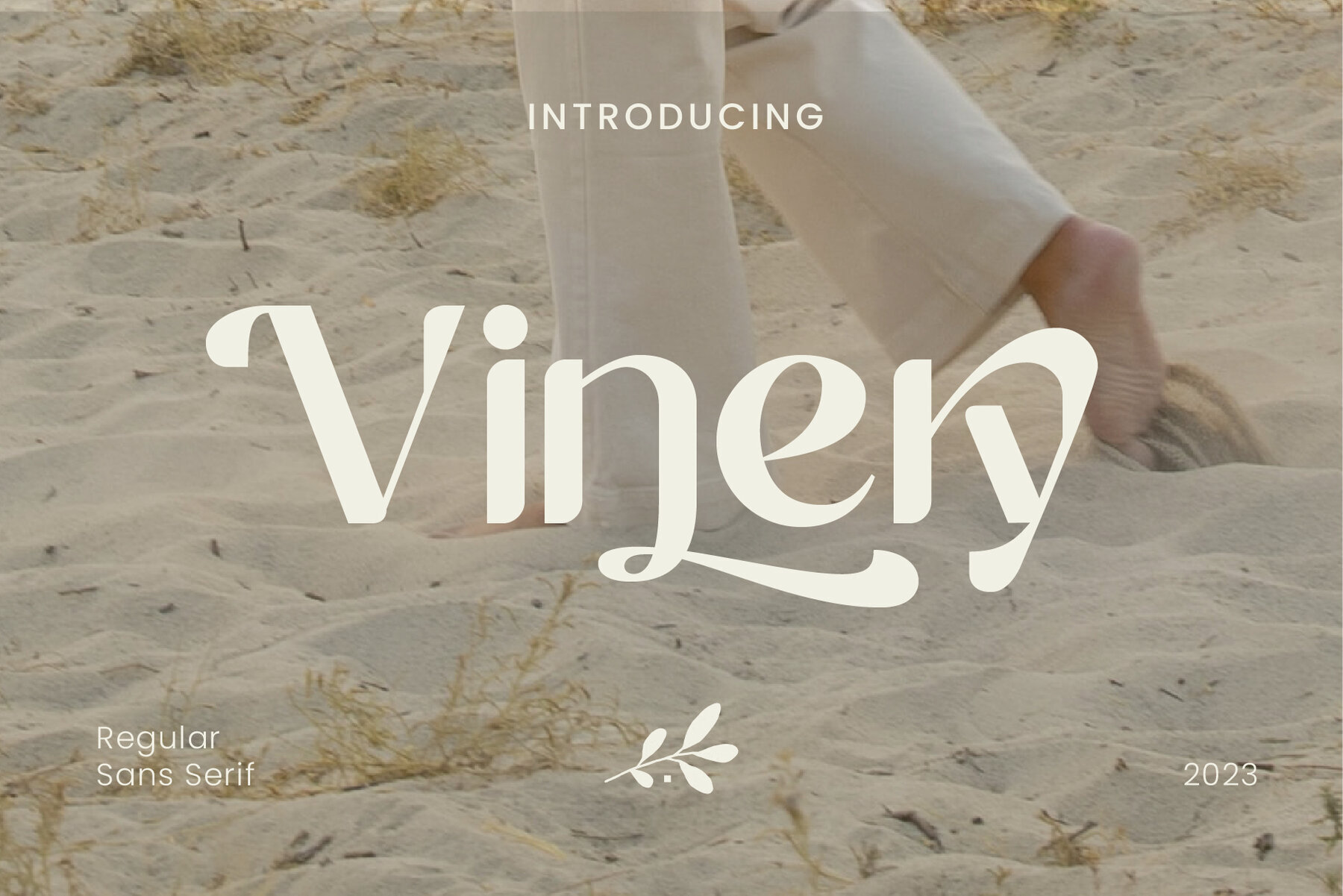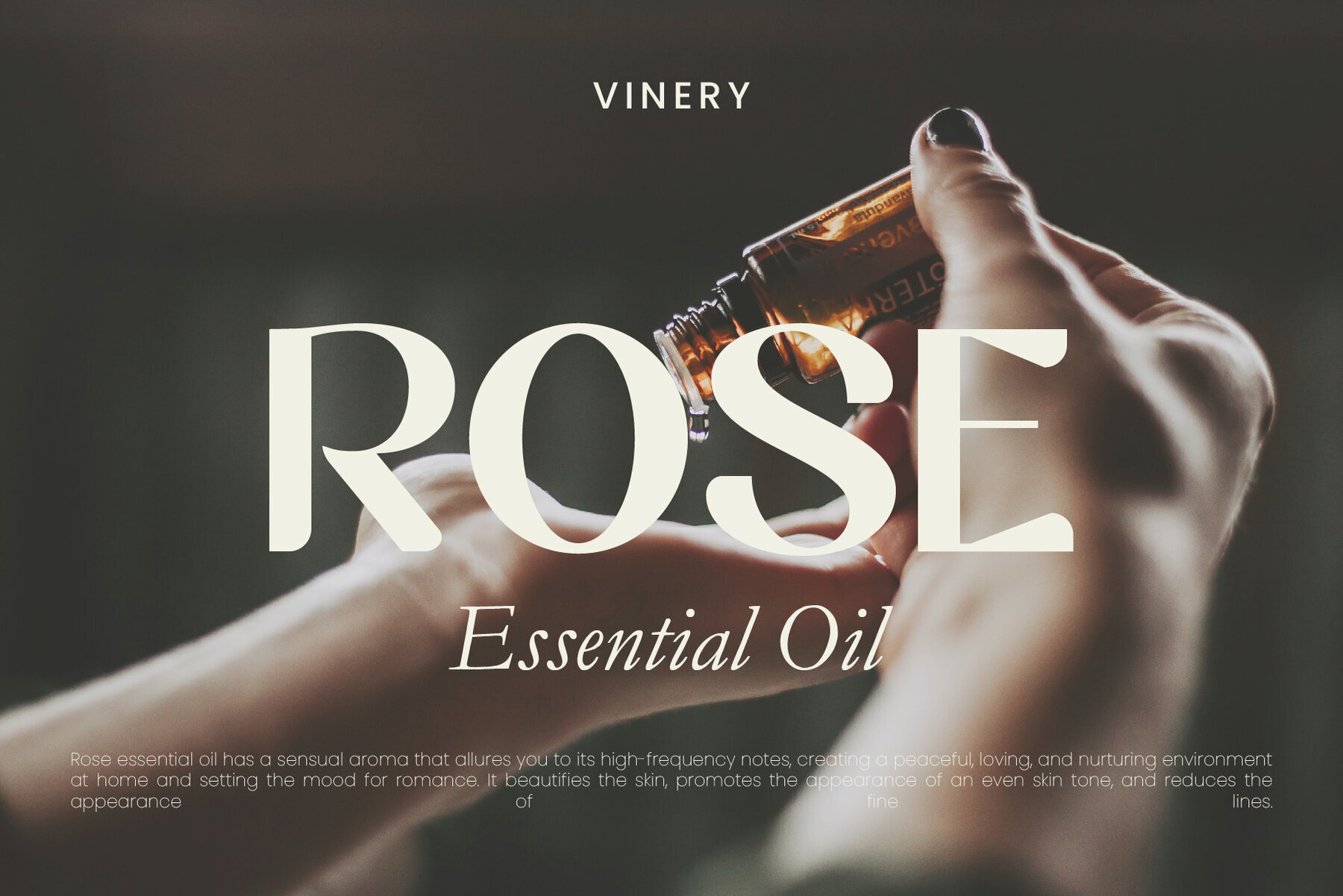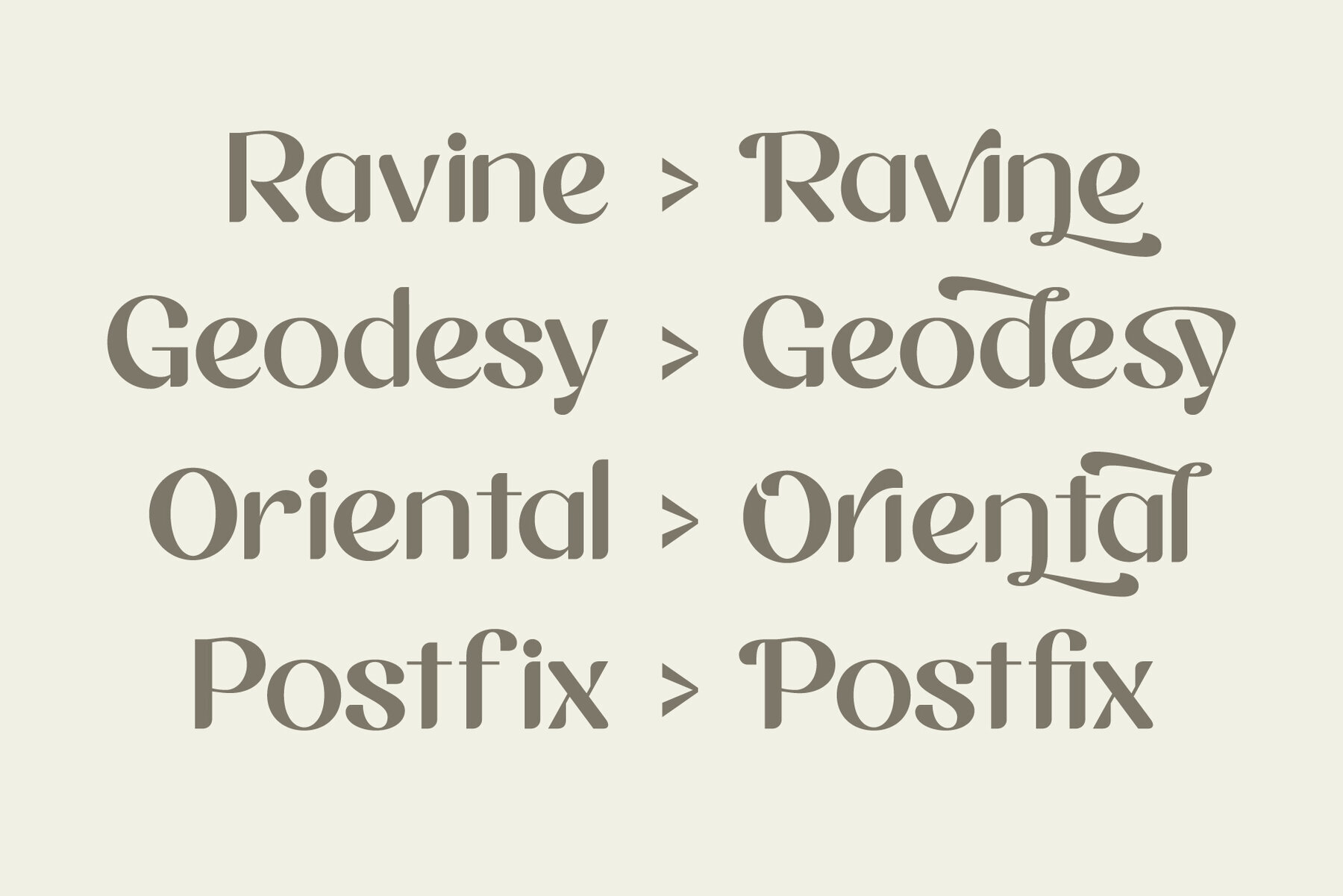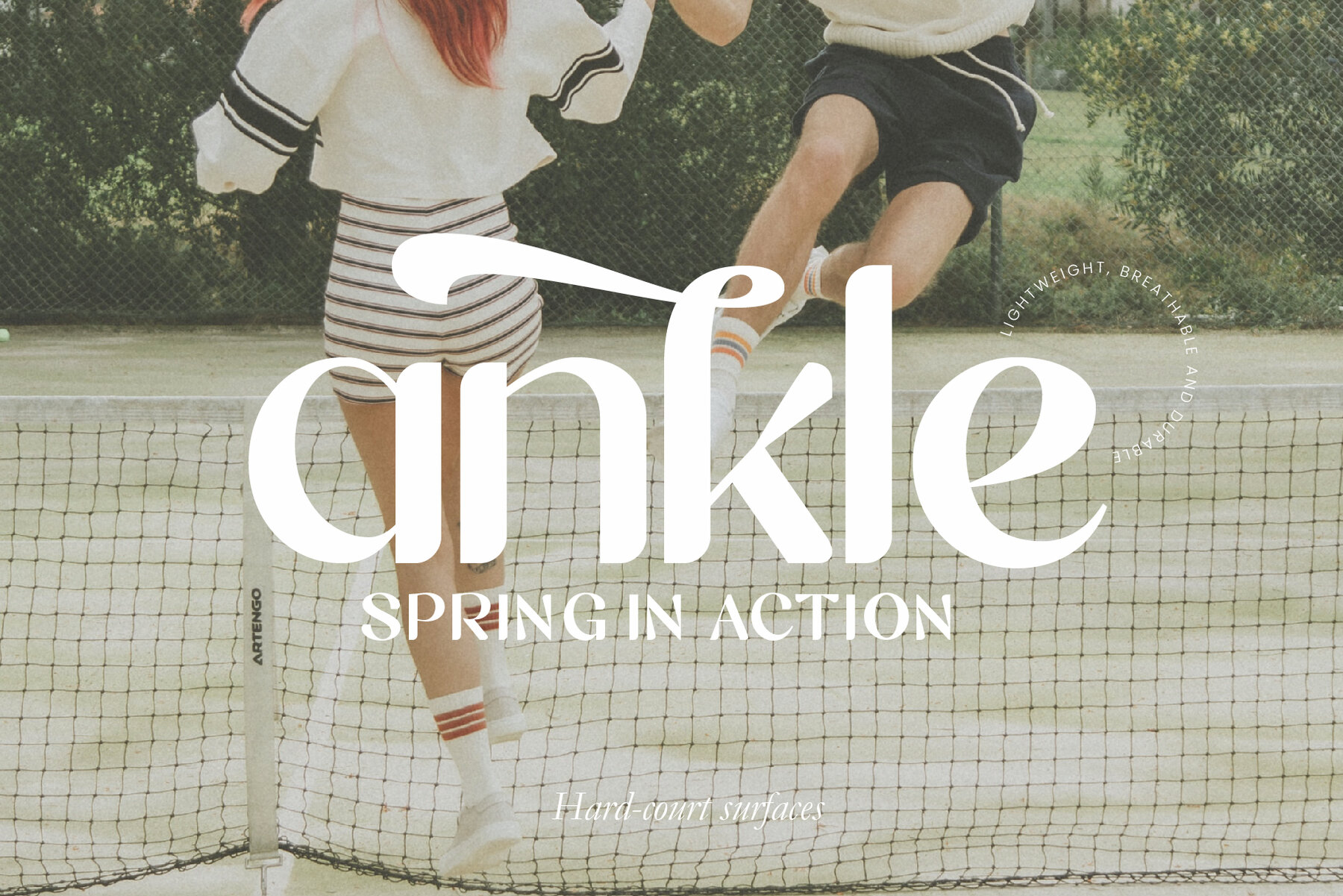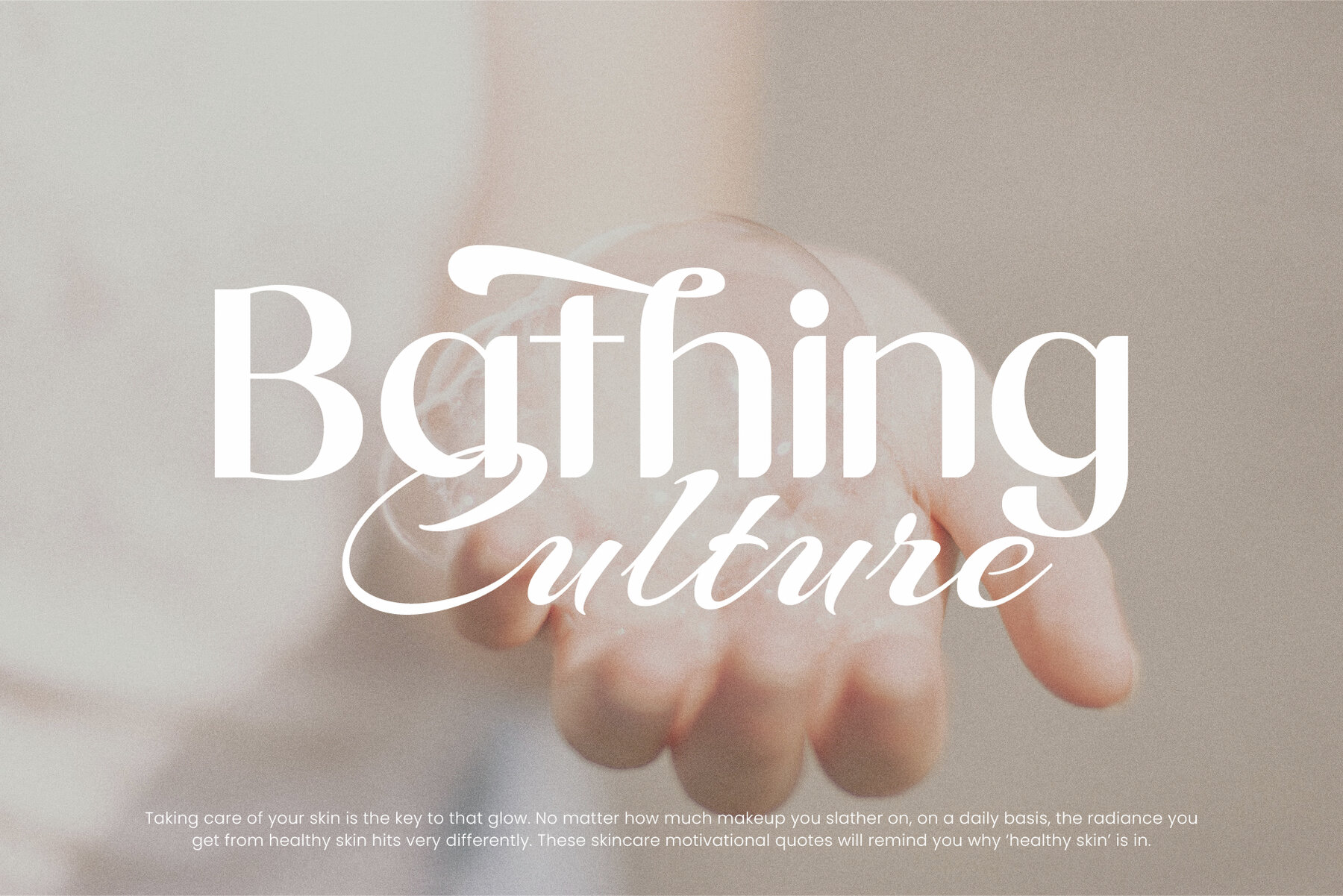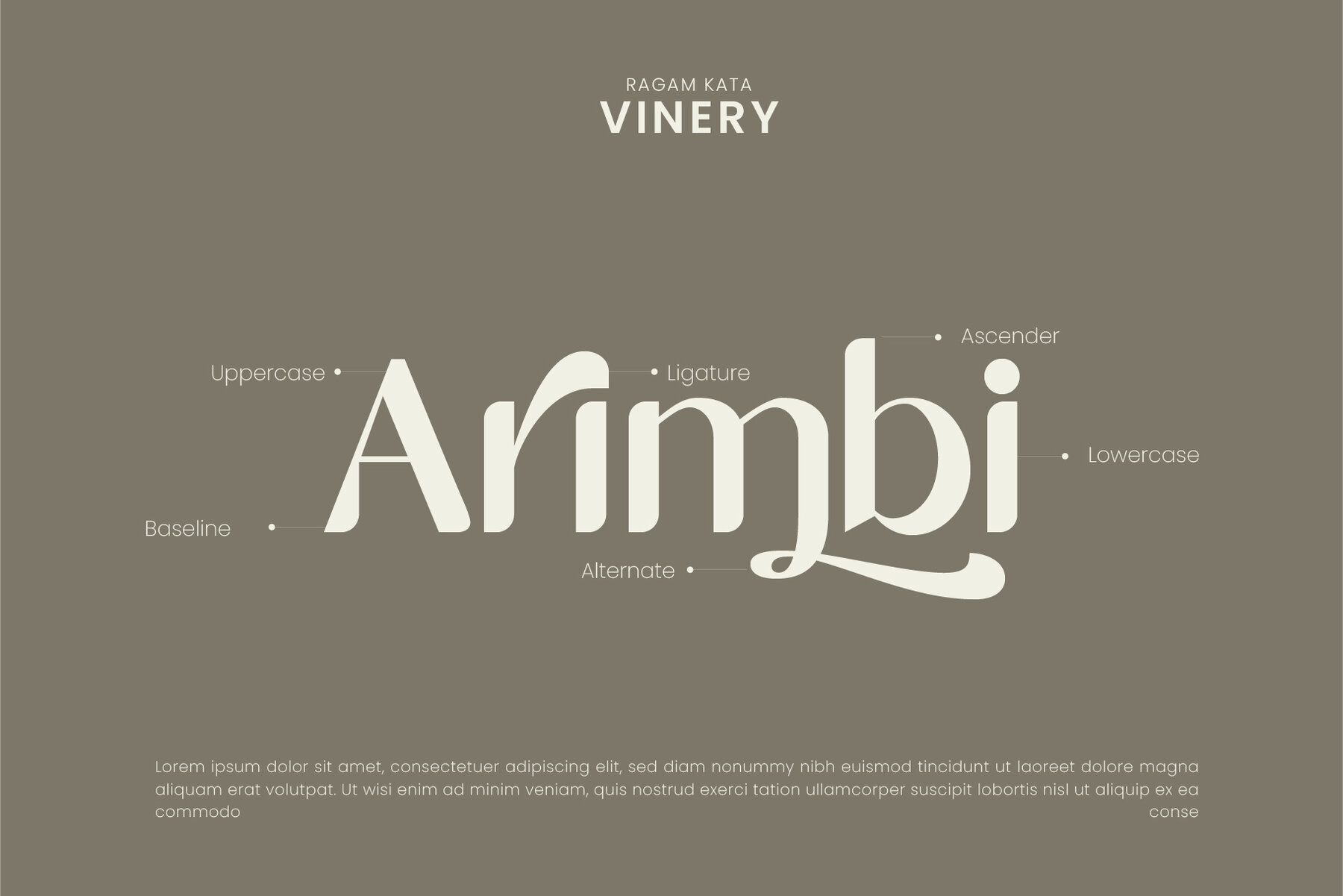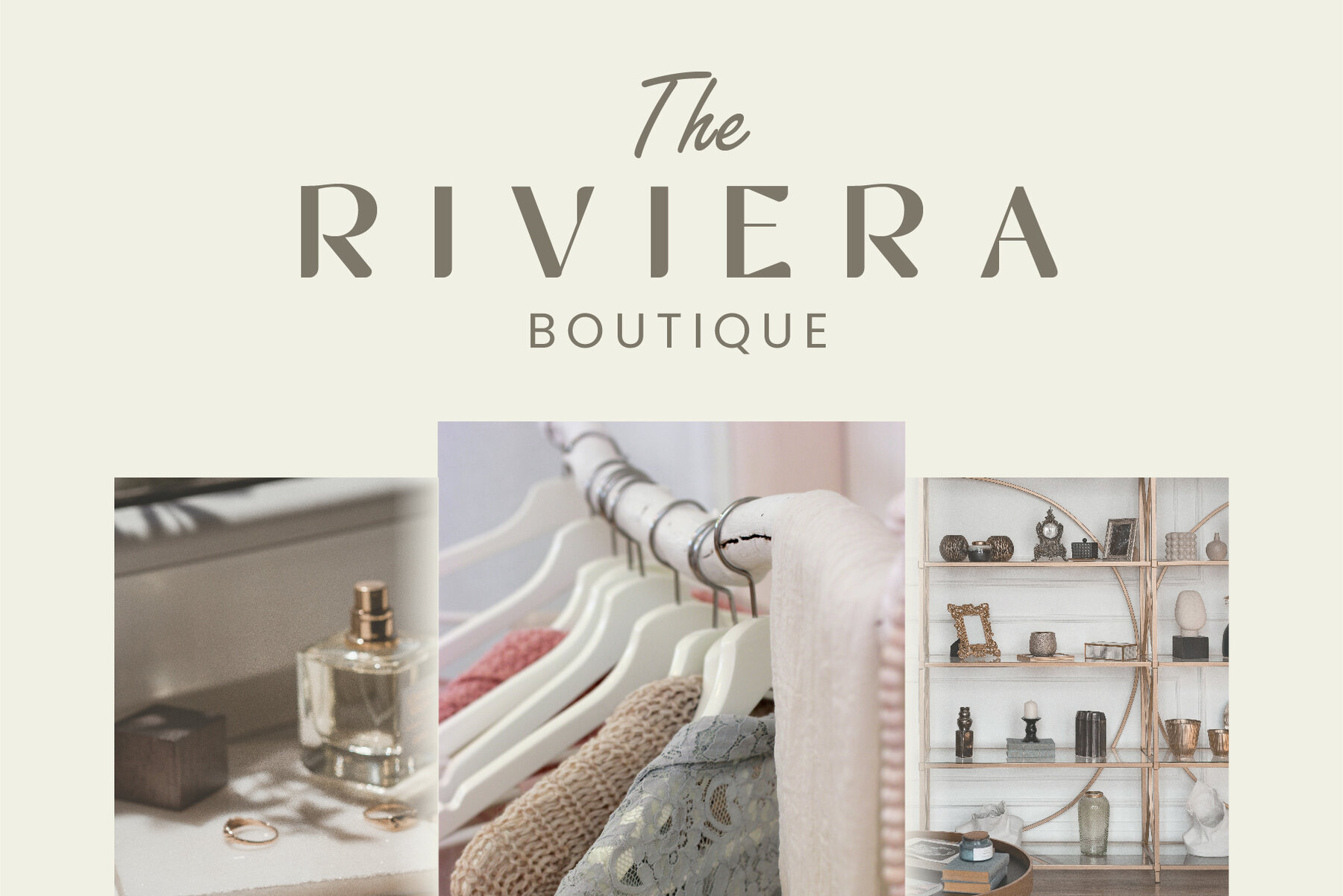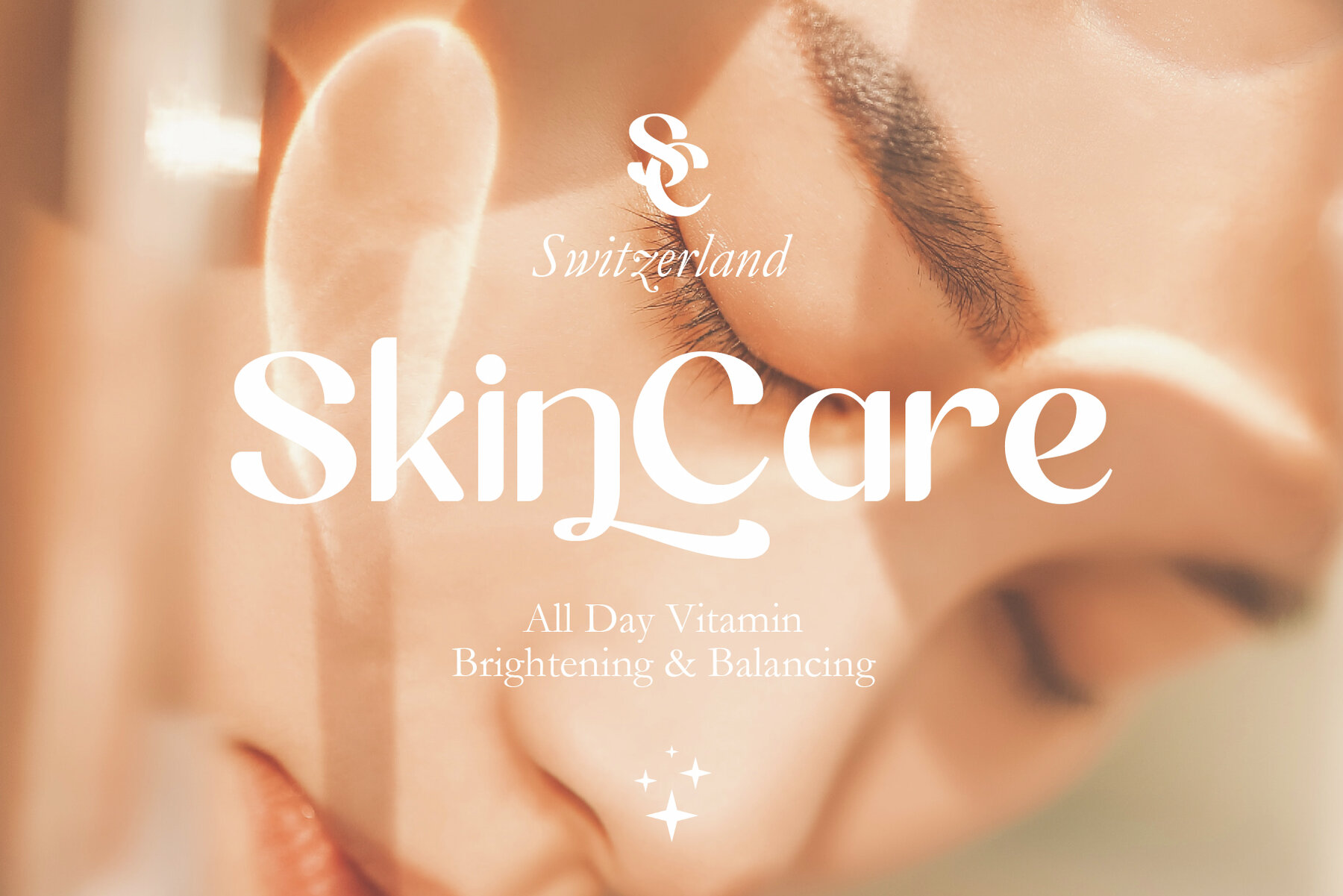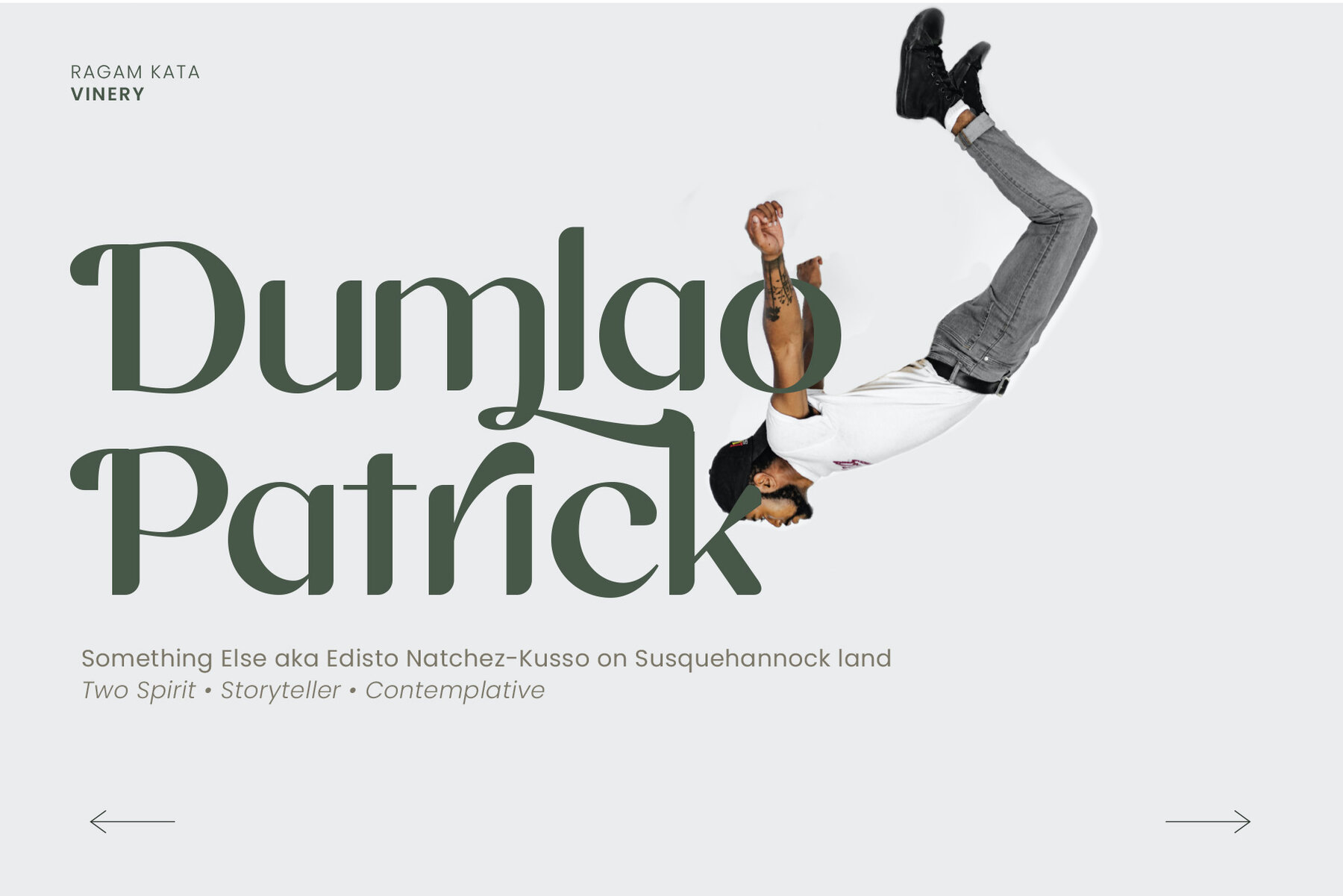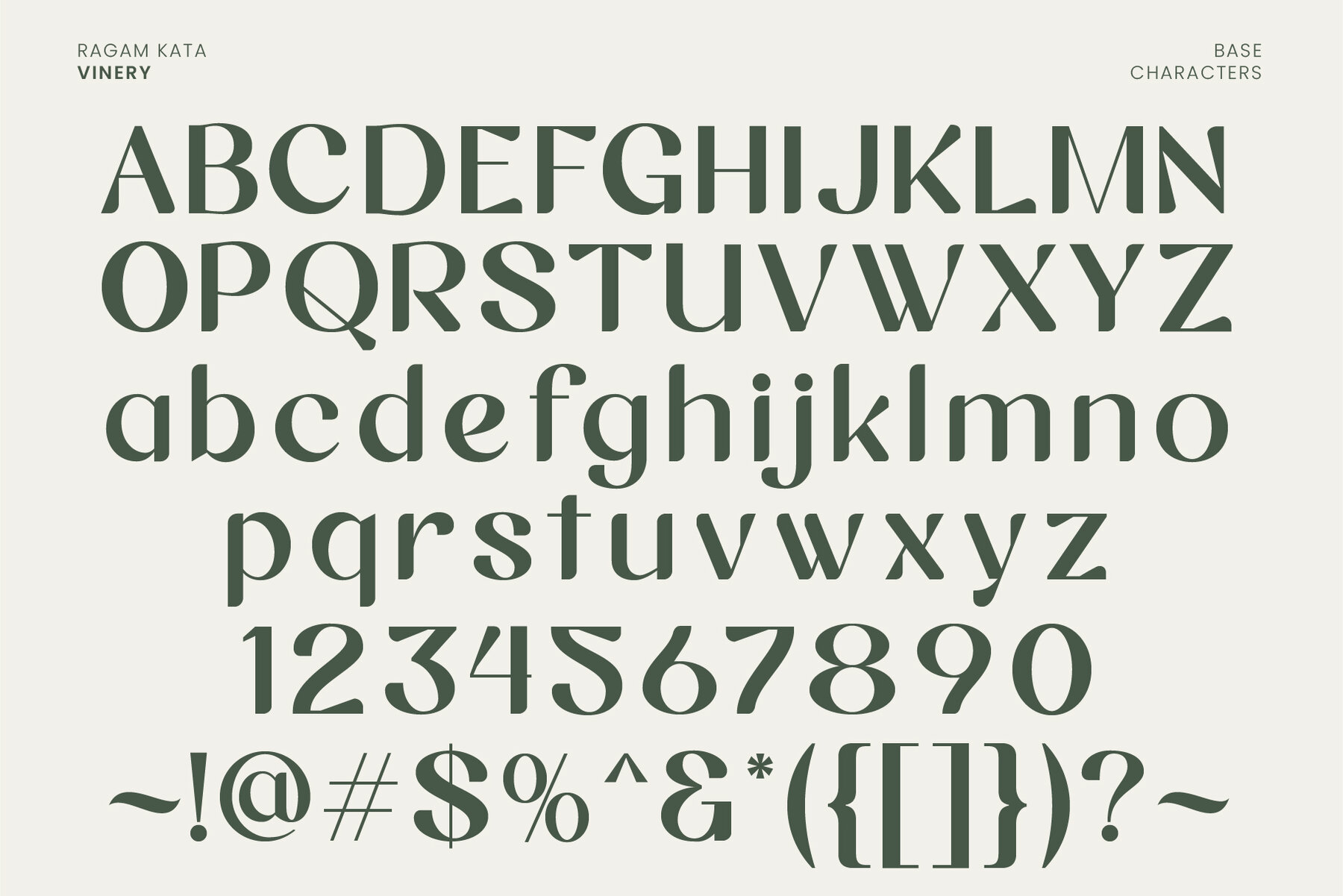
Vinery Font
Vinery Regular
Introducing Vinery - our latest sans serif font that combines modern design with unique swash alternates. This font is perfect for any design project that requires a clean and sleek look. With its minimalist and elegant design, it's ideal for branding, packaging, editorial, or web design. Vinery comes with a range of swash alternates that are carefully crafted to add an extra level of creativity to your designs. Whether you're looking for a simple or elaborate swash, this font has got you covered. The alternates are easily accessible, so you can switch them up to create different styles within your design. This font features a modern and sophisticated look with its clean lines and geometric shapes. It's easy to read and versatile, making it suitable for both headlines and body text. Vinery is perfect for creating a contemporary and professional look that stands out. With its unique swash alternates, it's sure to add a touch of creativity to any project. Try it out today and take your designs to the next level!